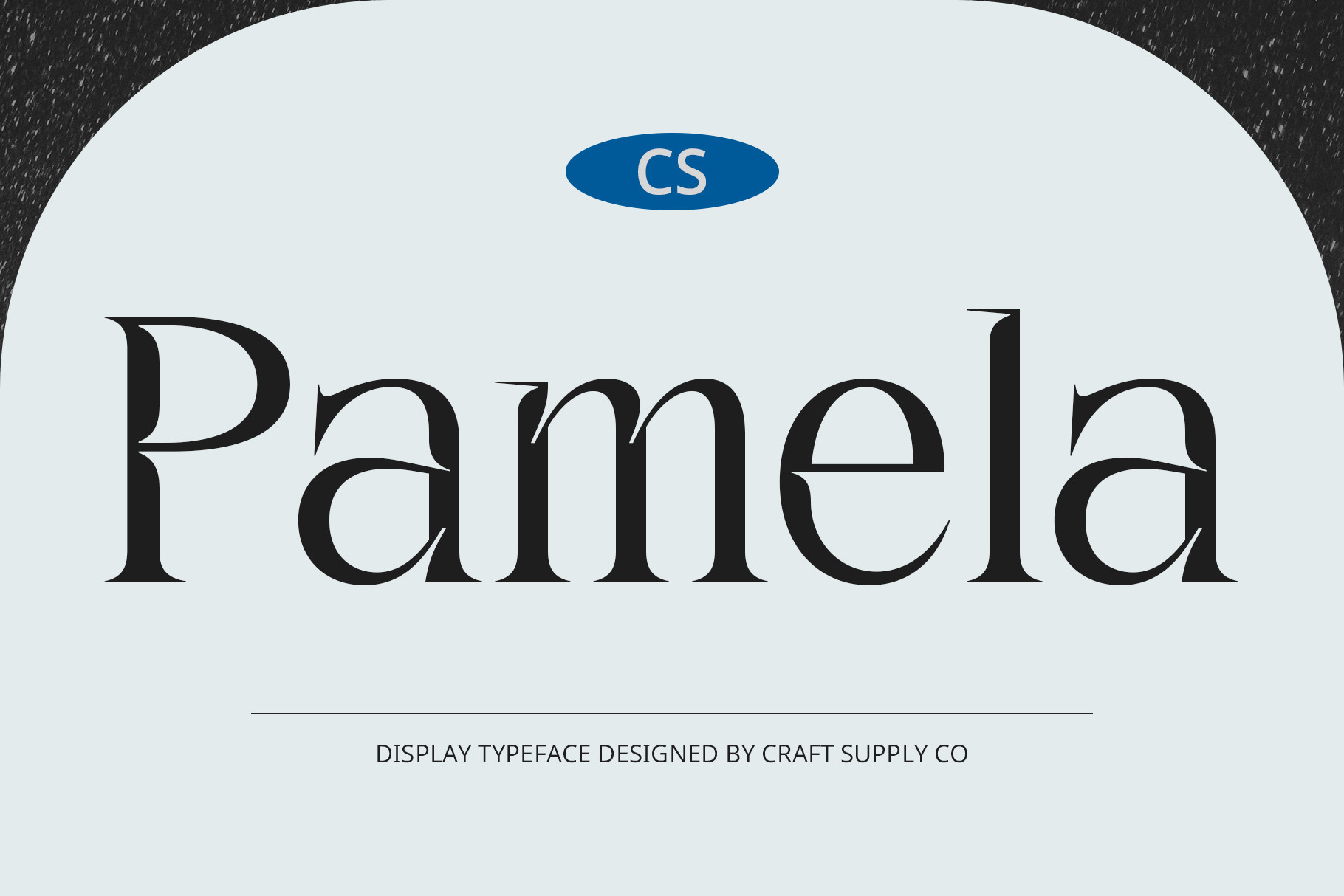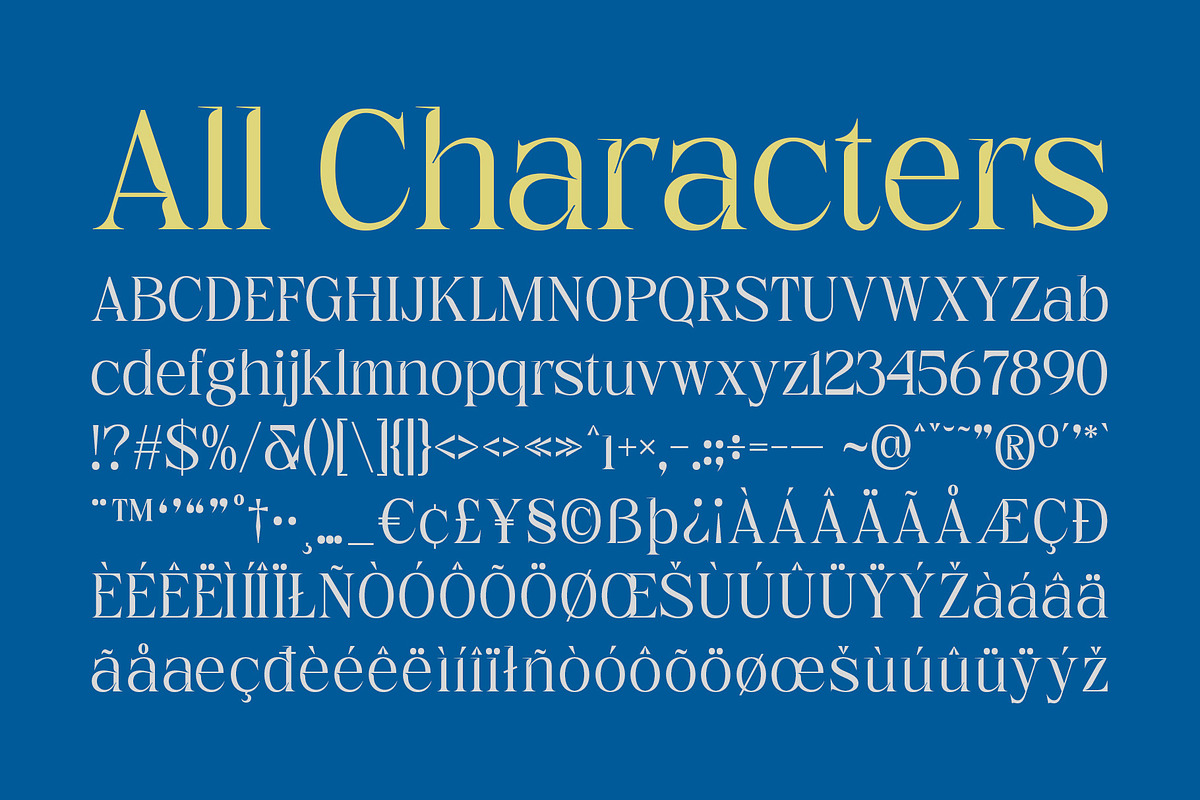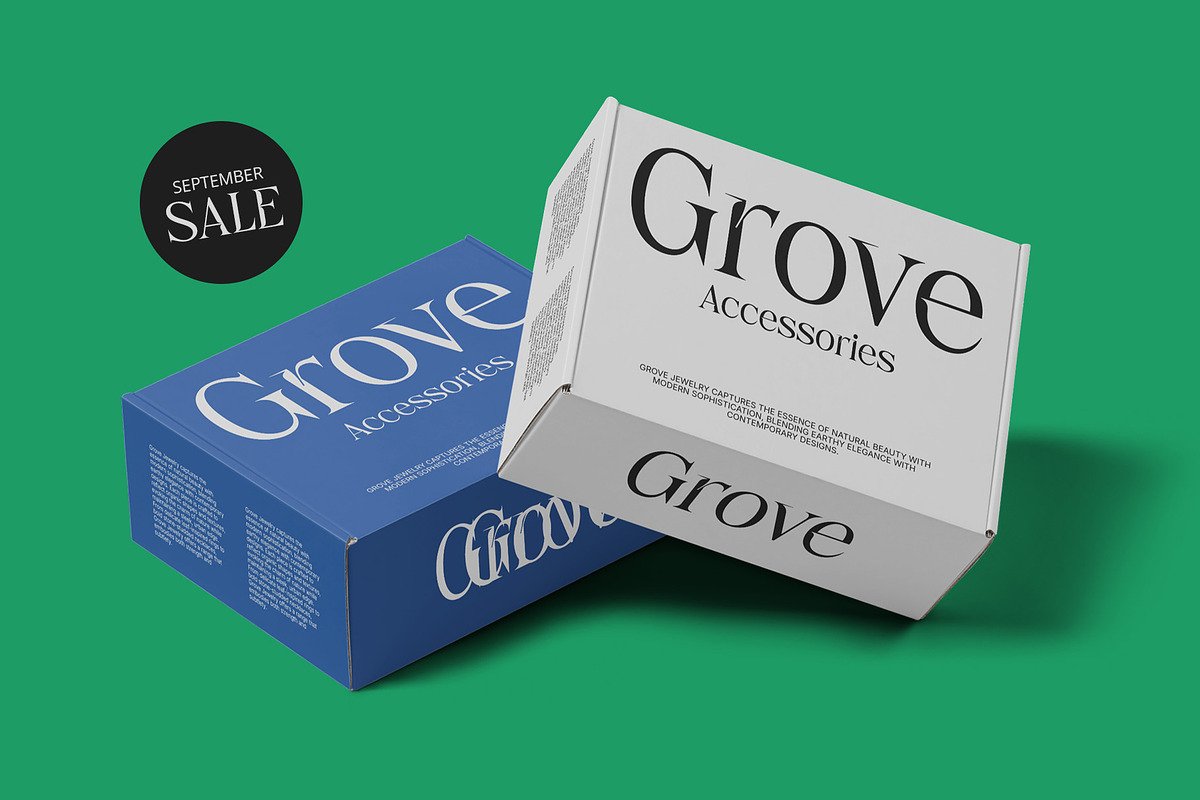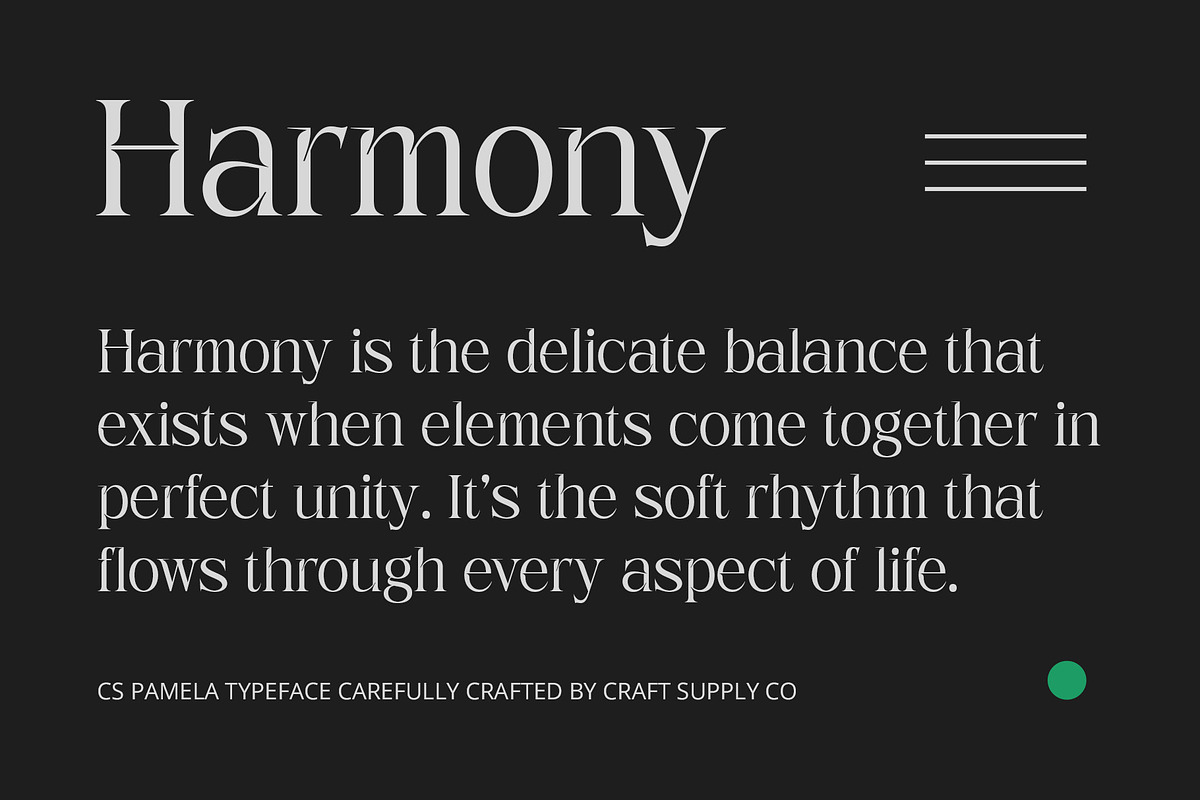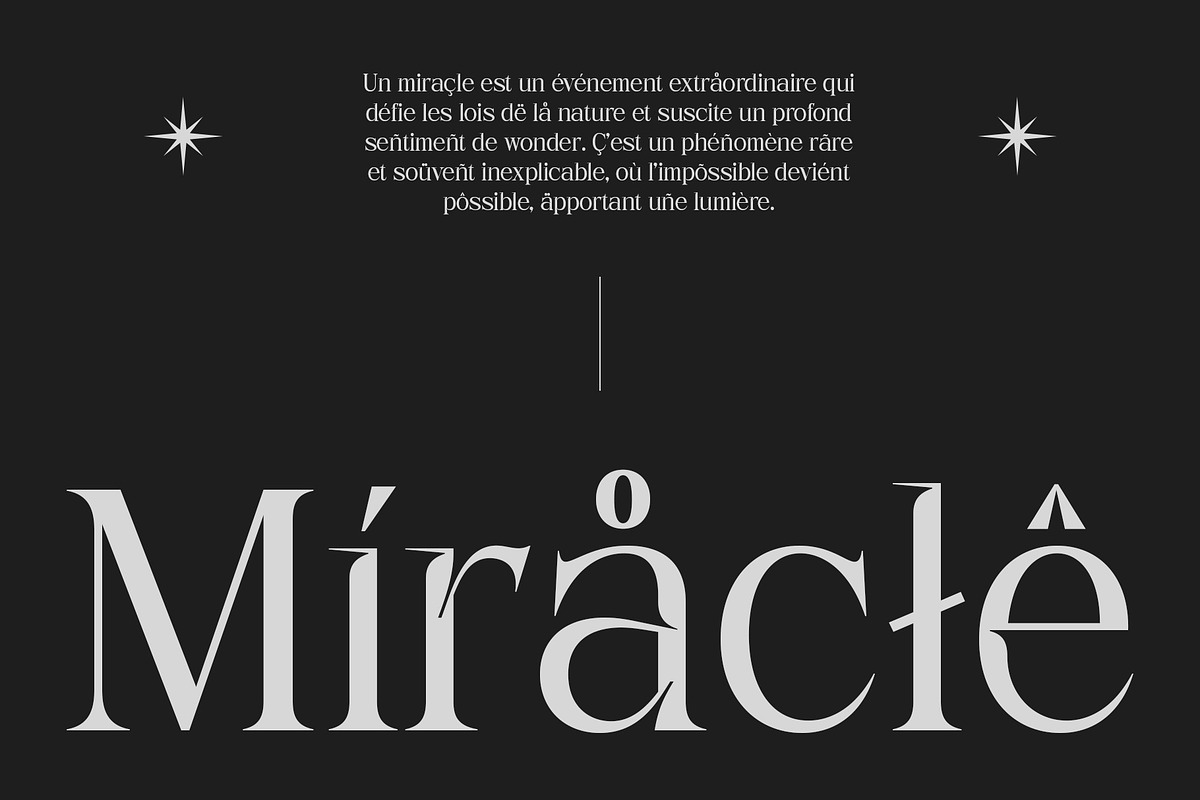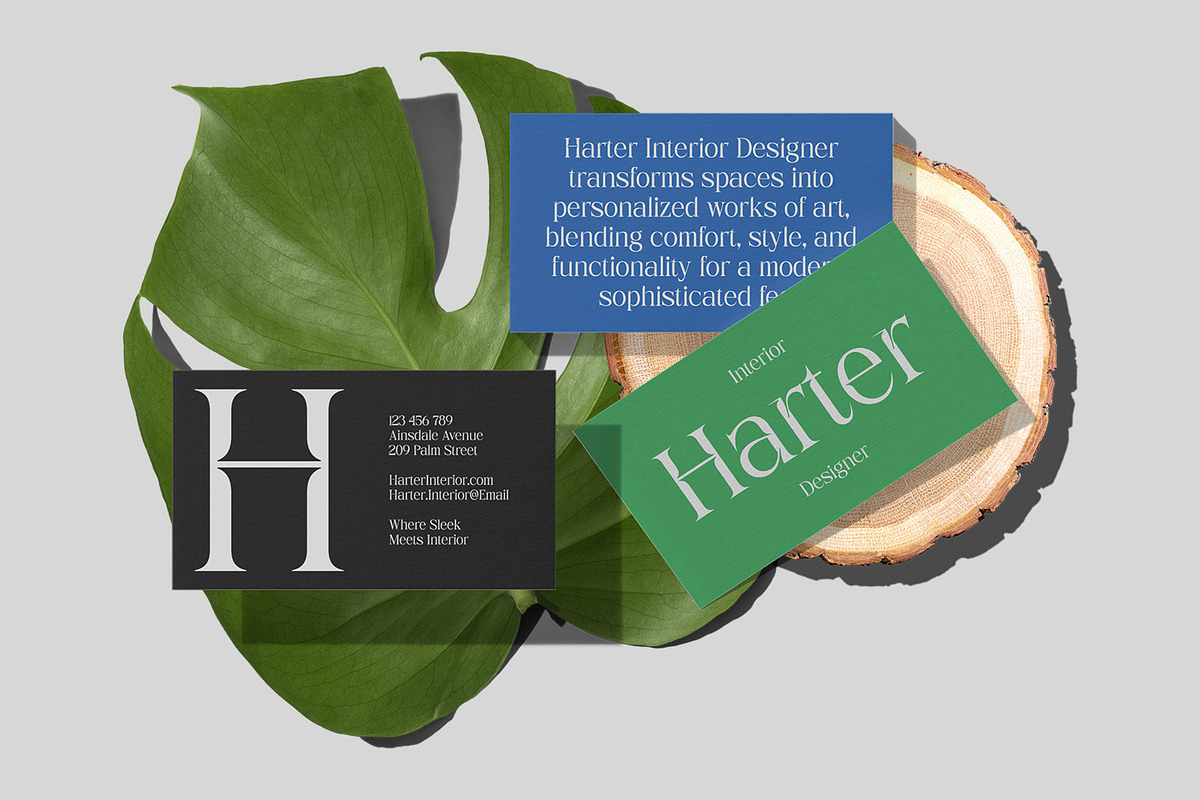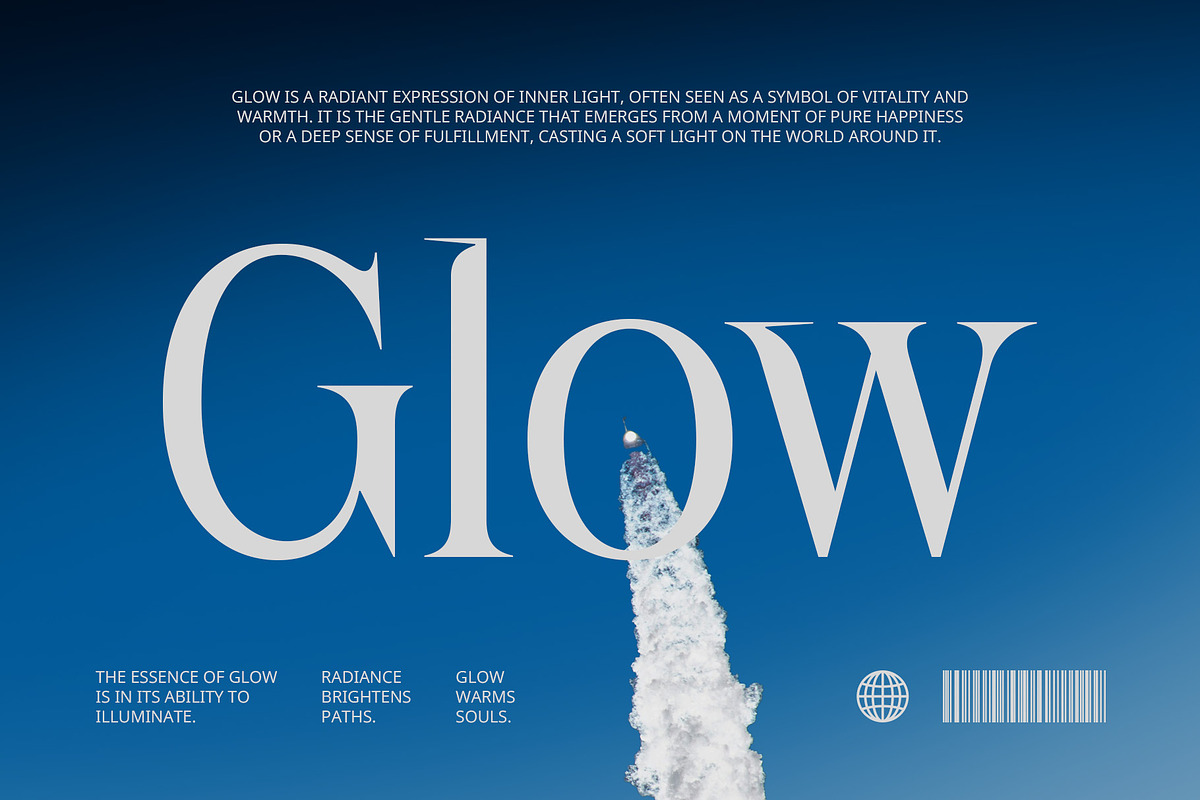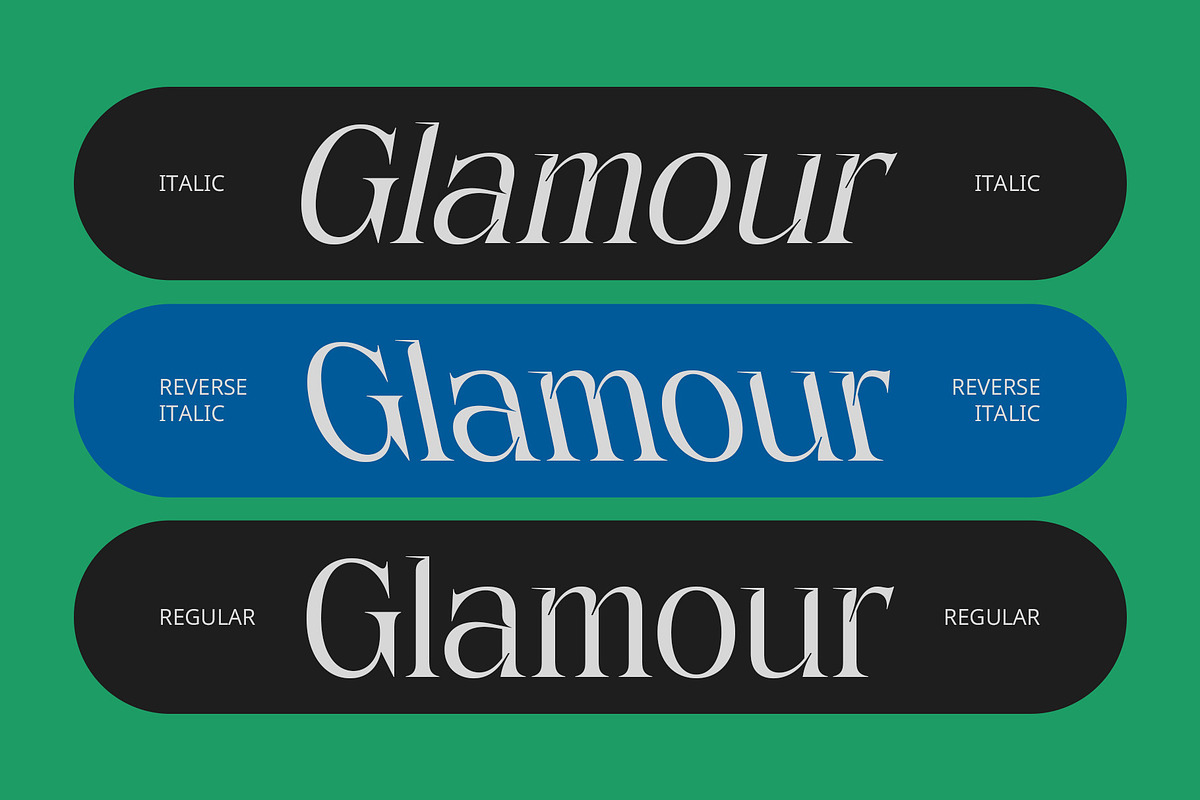
CS Pamela – Inktrap Font
CS Pamela – Inktrap Font: Where Elegance Meets Precision
Modern Serif with Inktrap Features CS Pamela is a modern serif font that seamlessly blends minimalist design with refined elegance. Featuring inktrap cuts, this font enhances legibility by ensuring smooth transitions between strokes, while its clean lines and elegant shapes exude sophistication. The subtle inktrap details elevate the overall design, offering both style and functionality, making it perfect for high-end branding and editorial projects that require a perfect balance of simplicity and luxury.
Minimalist Design with Refined Details The minimalist design of CS Pamela allows its elegant letterforms to shine through with clarity and precision. Its well-crafted serifs and smooth inktrap cuts ensure that the font retains readability even at smaller sizes, while maintaining a sophisticated, modern aesthetic. This font is ideal for projects that seek to communicate a high-end, professional image, with its refined details adding depth and charm to any design.
Perfect for High-End Branding and Editorial Projects CS Pamela is the perfect font for luxury branding, editorial layouts, and upscale promotional materials. Its combination of modern serifs and inktrap features makes it stand out in sophisticated designs, whether it’s used for magazine headers, fashion branding, or high-end advertising. The sleek, minimalist style also makes it suitable for contemporary websites and corporate identities that aim to convey elegance with a touch of modern flair.
- CS Pamela Regular
- CS Pamela Italic
- CS Pamela Reverse Italic